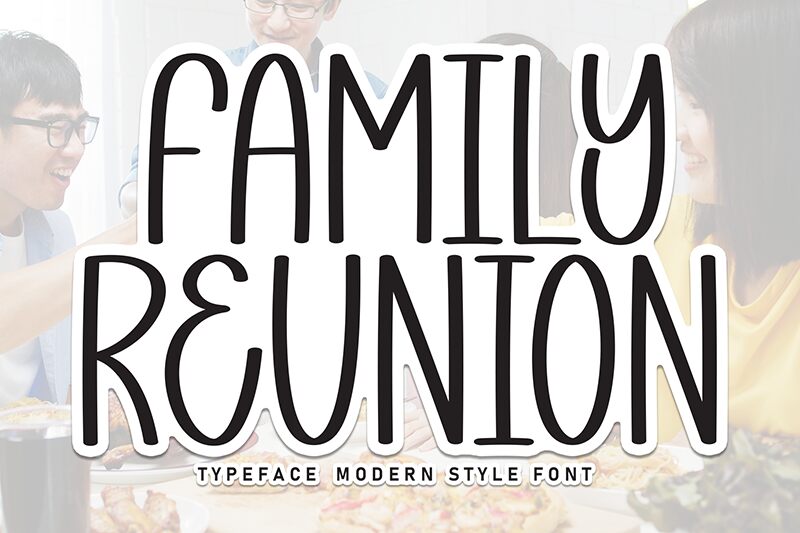
Family Reunion
Family Reunion font by Scratchones is a light, condensed, handwritten font that captures a casual and friendly vibe. Whimsical with organic shapes, it brings a sense of modern playfulness to any project. Its charming appearance makes it suitable for wide applications.
Use this free handwritten font for large branding projects as well as personal stationery designs. Create striking labels, compelling book covers, lovely posters and playful packaging. àUse it for magazine ads and spreads, website design (blog headers), social media posts and quotes.